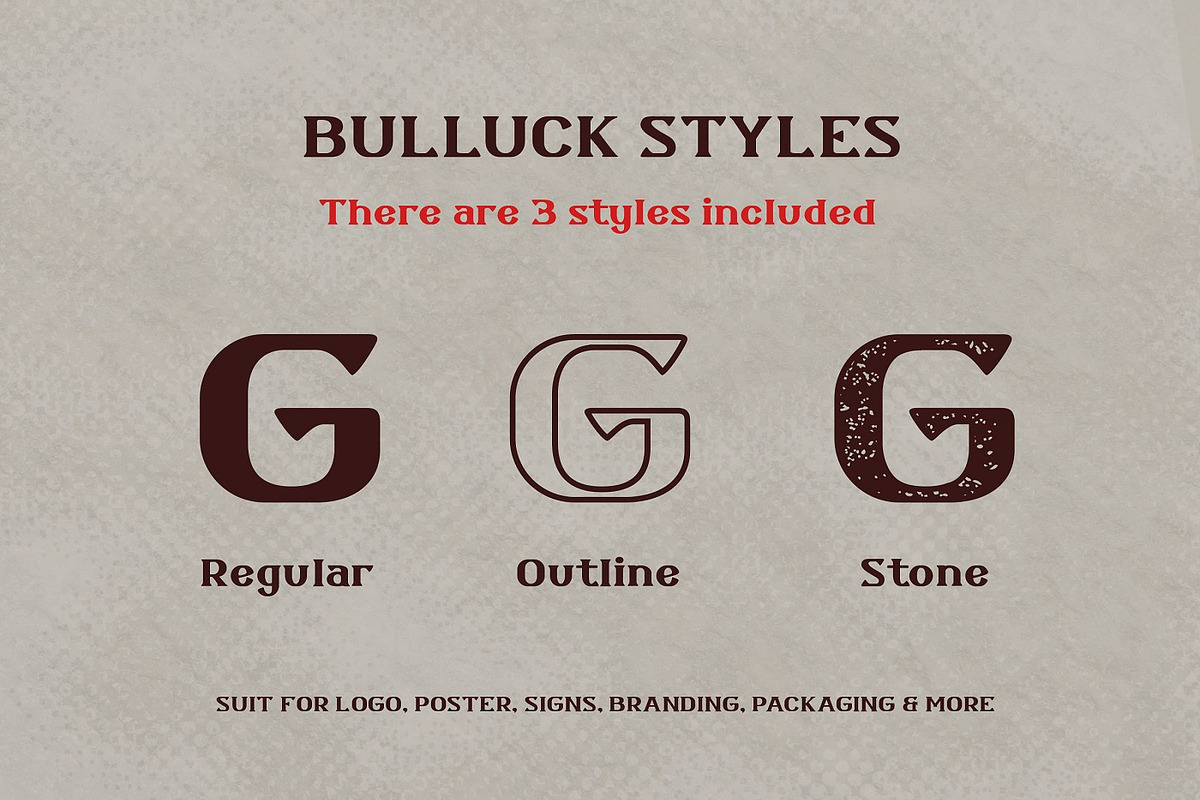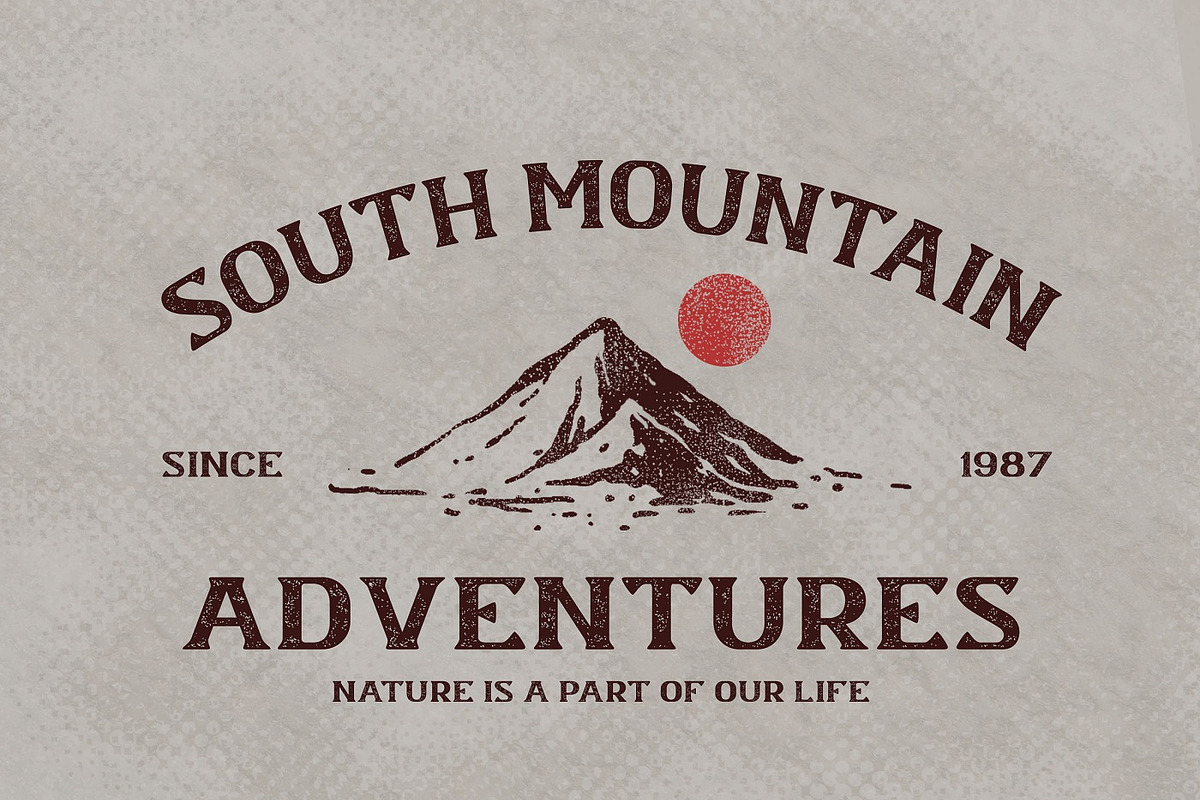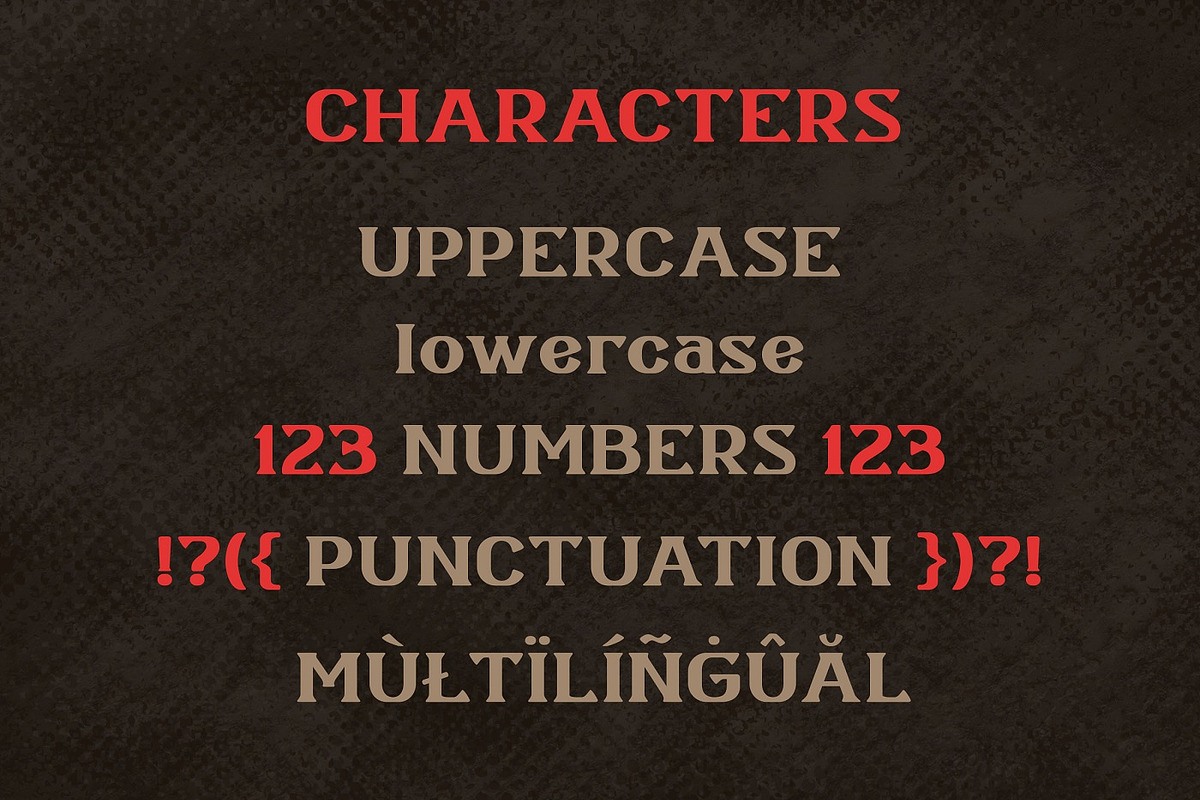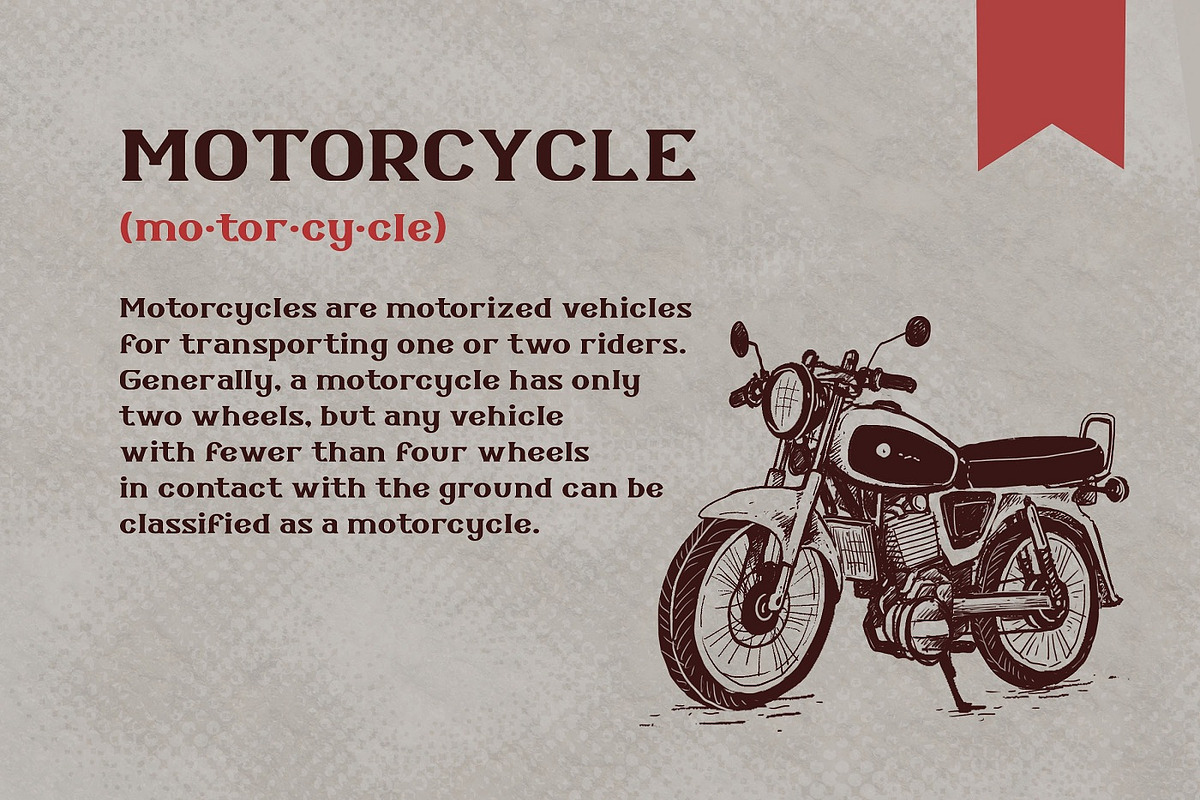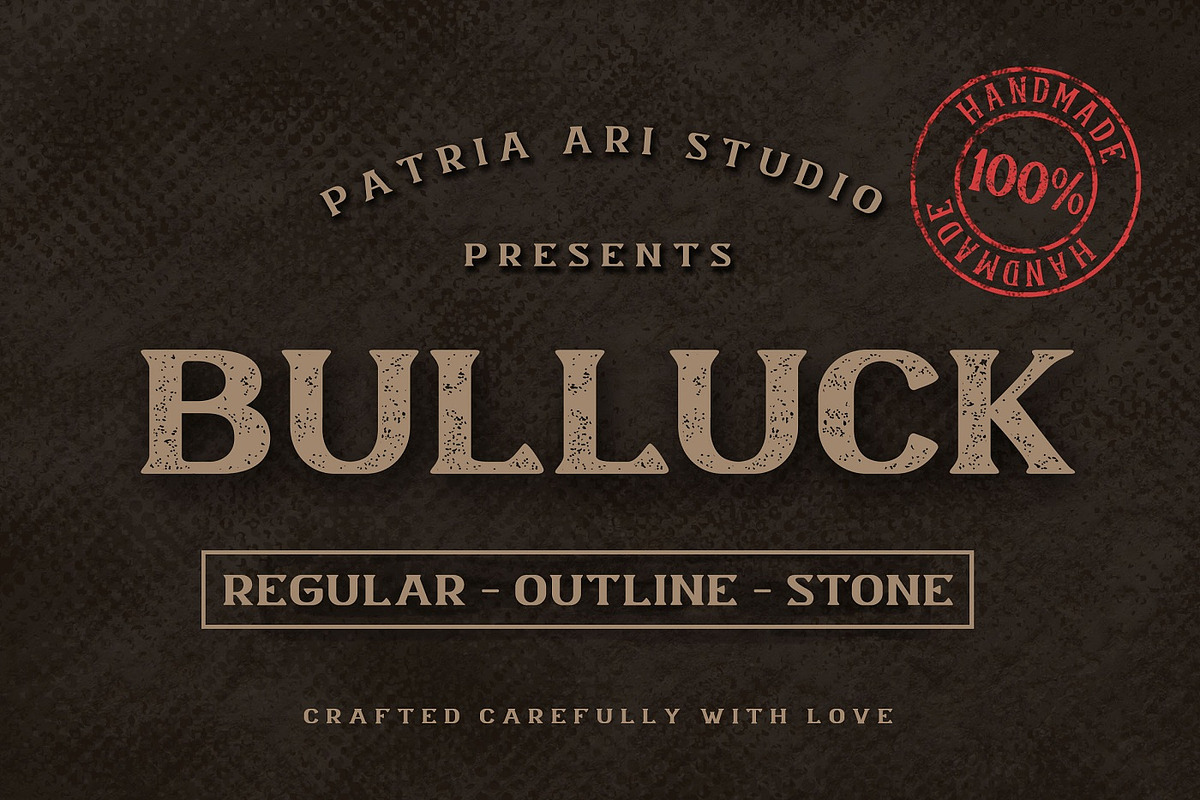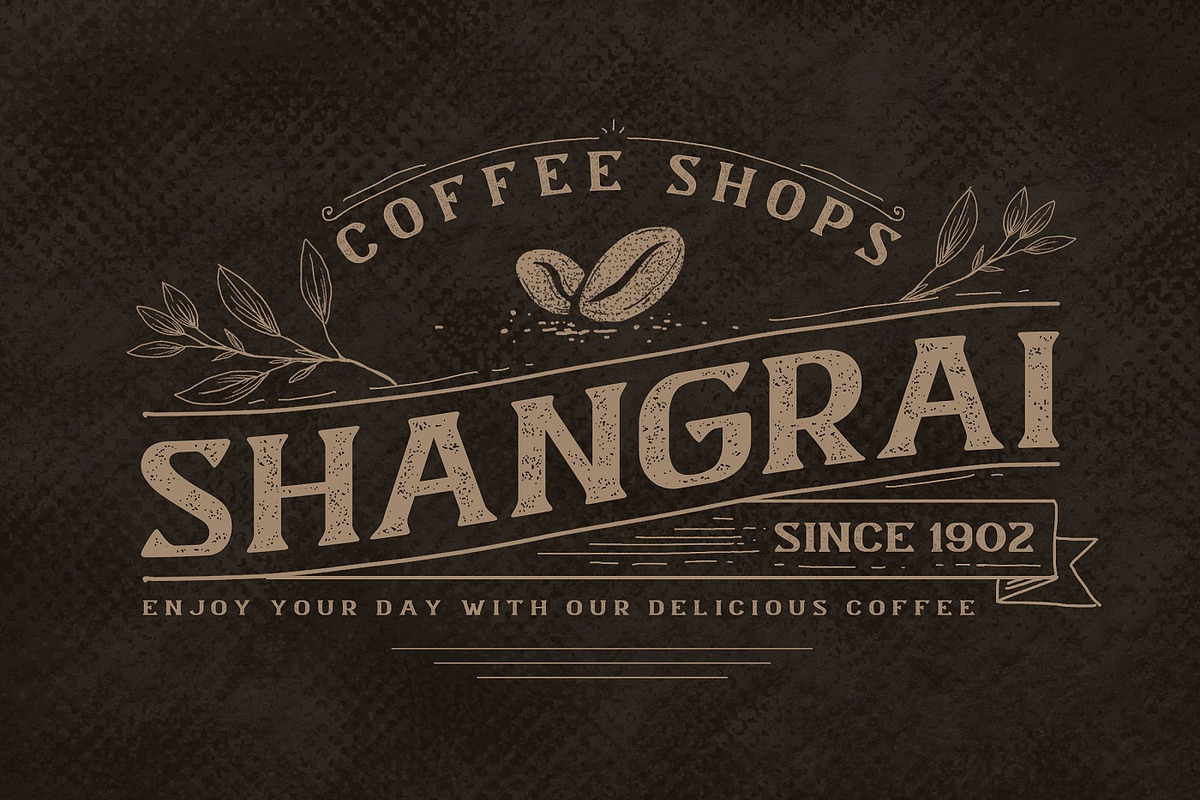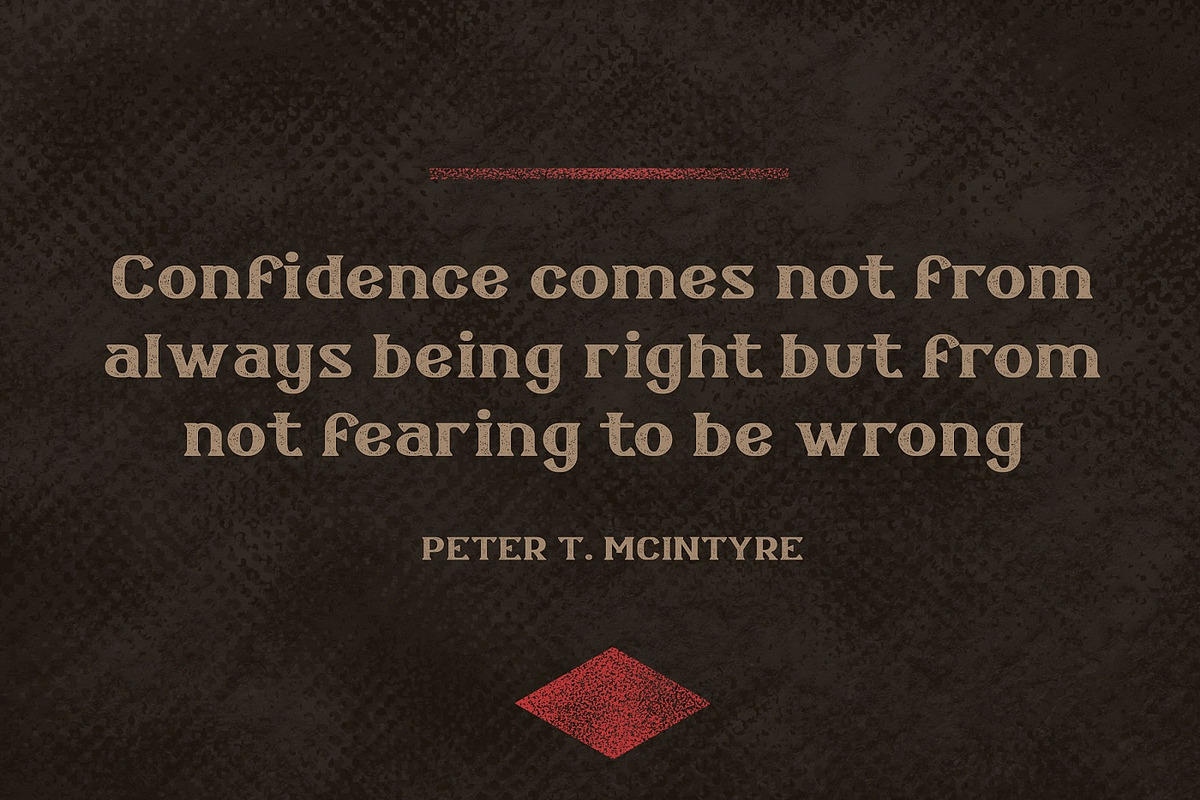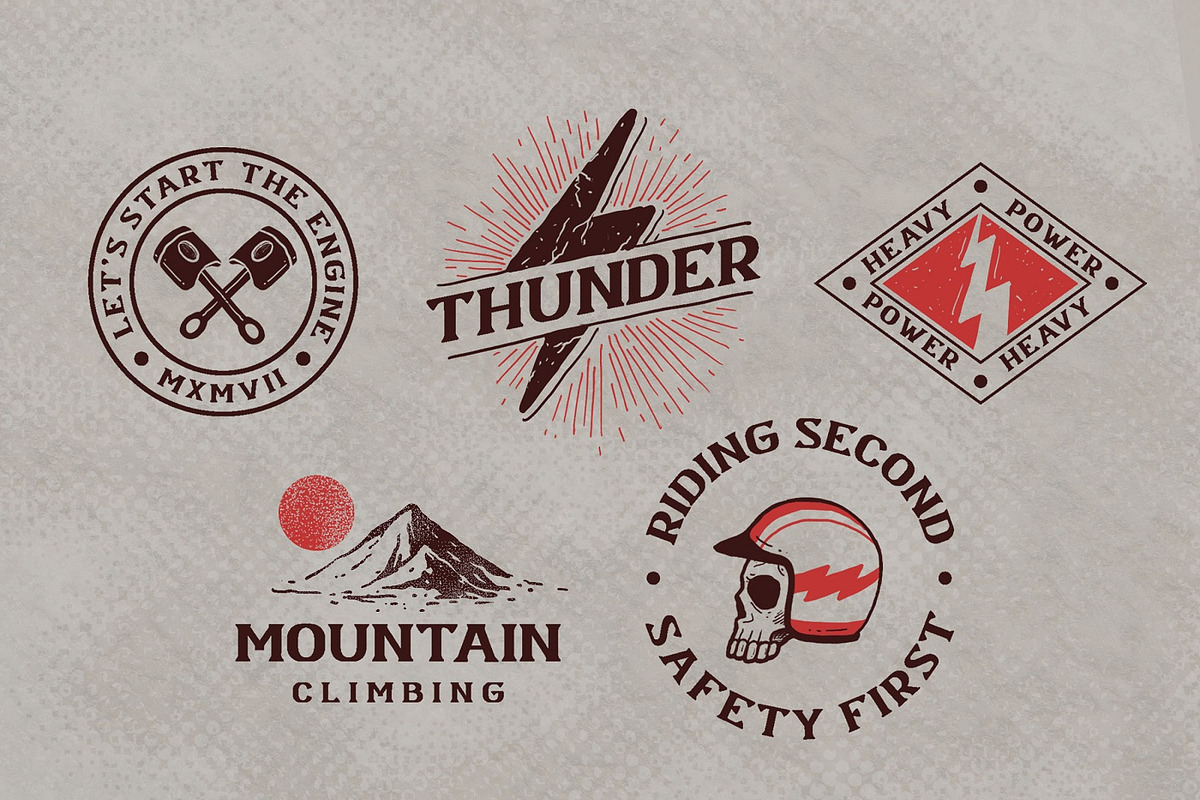
Bulluck - Vintage Typeface
Bulluck is a serif display typeface with strong characters to support your brand/project.
Bulluck is perfect for projects such as logos & branding, headlines, posters, signage, advertisements, printed quotes, product packaging, product designs, label, photography, watermark, special events or anything. In this product you will get:
Bulluck - Vintage Typeface by Patria Ari (P4tcreativa) fits naturally into Branding, posters, packaging, typography.